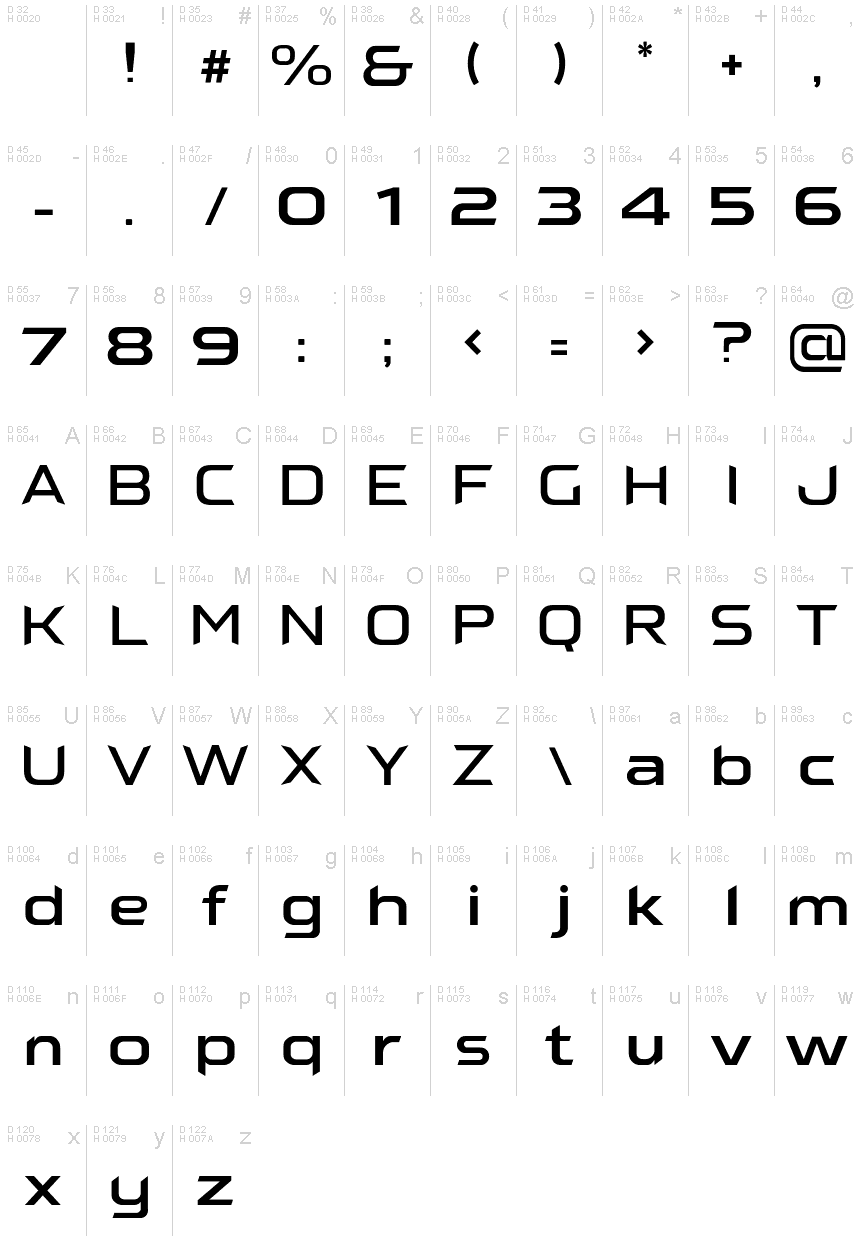
Awesome Proxon Font 2023
Awesome Proxon Font 2023. Proxon is a techno type font that can be used on any device such as pc, mac, linux, ios and android. Usage of this font on any work without proper license is deemed as illegal.
Web if you recognize the font from the samples posted here don't be shy and help a fellow designer. Web proxon display font this font designed by ui creative is a bold and robotic display typeface, slightly extended sans serif typeface with pointed endings Web font meme is a fonts & typography resource.
Proxon Is A Techno Type Font That Can Be Used On Any Device Such As Pc, Mac, Linux, Ios And Android.
Proxon Display Font Was Designed And Published By Ui.
Proxon is a techno type font that can be used on any device such as pc, mac, linux, ios and android. Web proxon font download is available free from fontget. Web if you recognize the font from the samples posted here don't be shy and help a fellow designer.